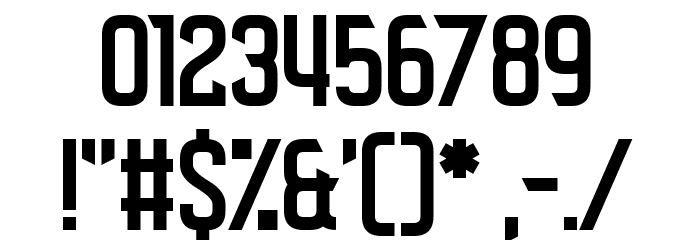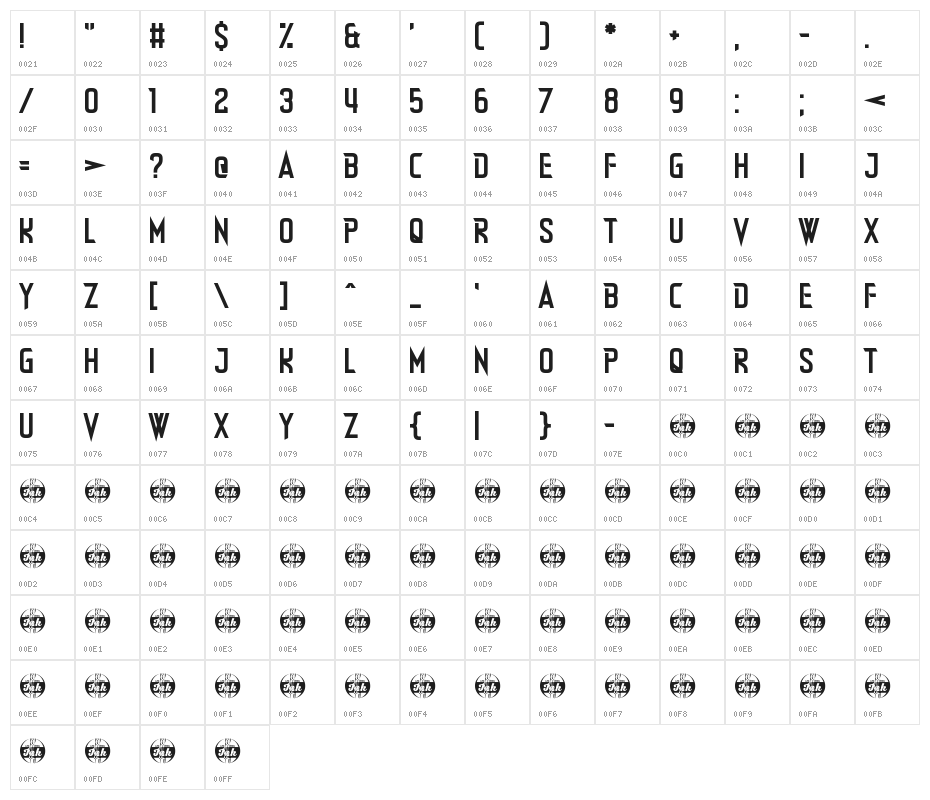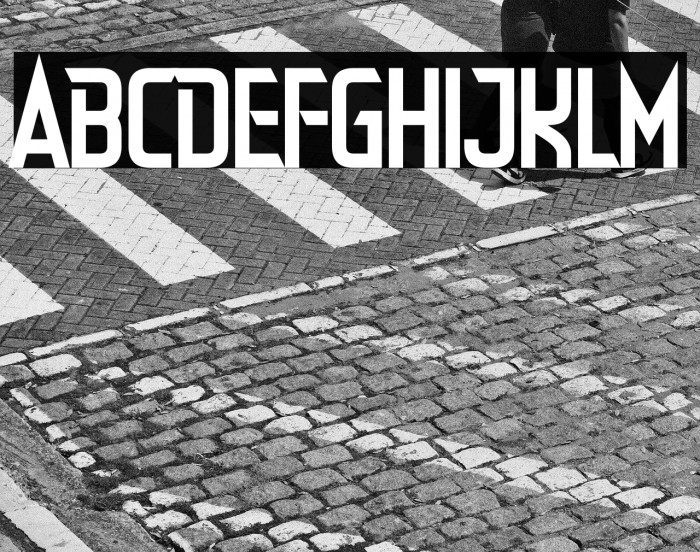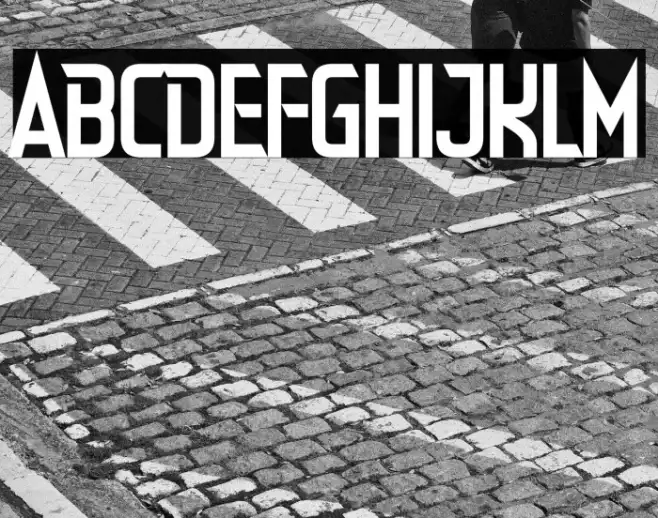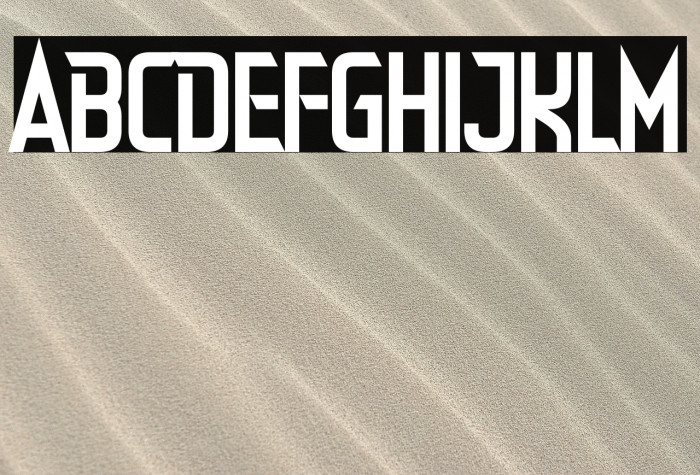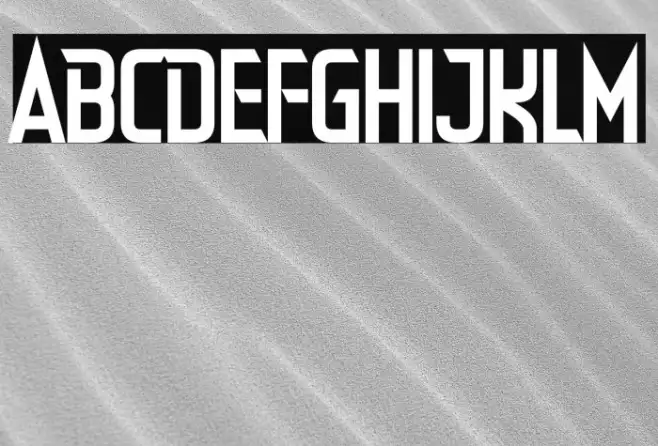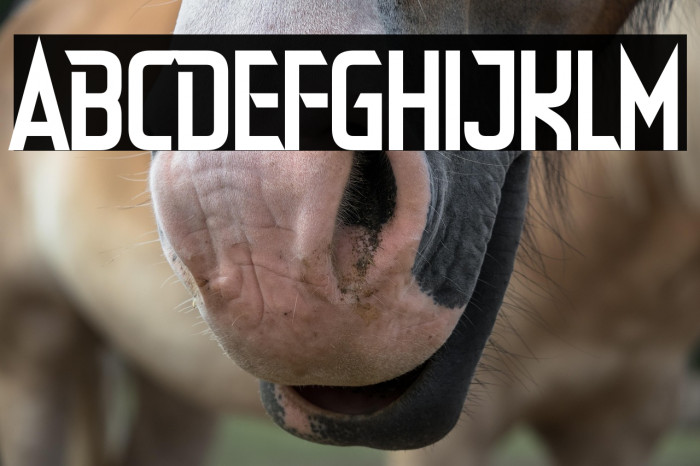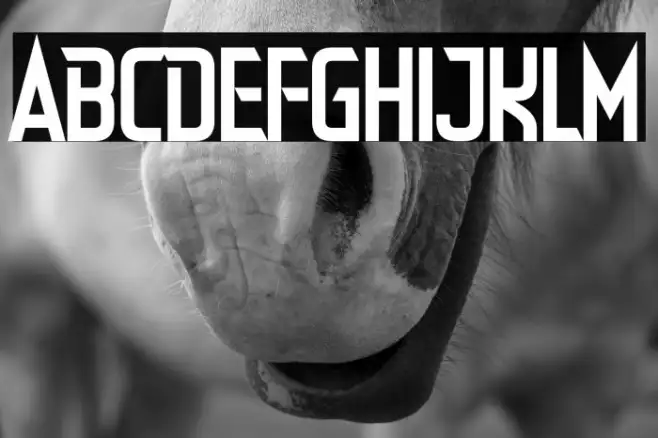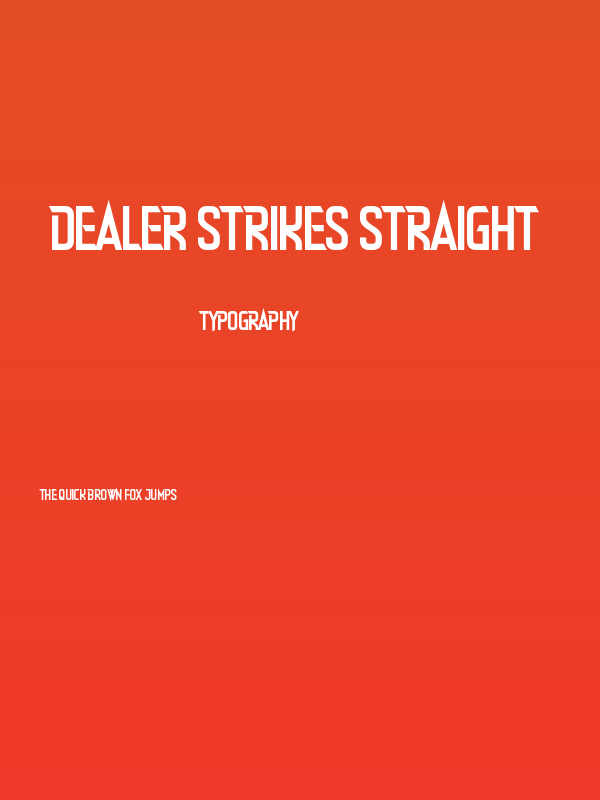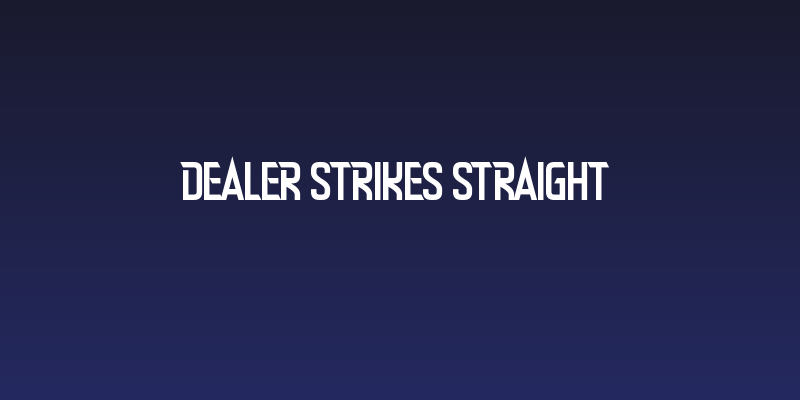
Dealer Strikes Straight Font
Dealer Strikes Straight Description
This font features a bold, geometric design with sharp, angular edges and a modern aesthetic. The uppercase letters are distinct with a uniform height, while the lowercase letters maintain a consistent style that complements the uppercase set. The numerals are clear and legible, following the same geometric principles. Special characters are designed with the same boldness, ensuring consistency across all glyphs. The overall appearance is striking and impactful, making it suitable for attention-grabbing designs.
| Proposed Projects | Ideal for branding, posters, headlines, and any project requiring a strong visual impact. |